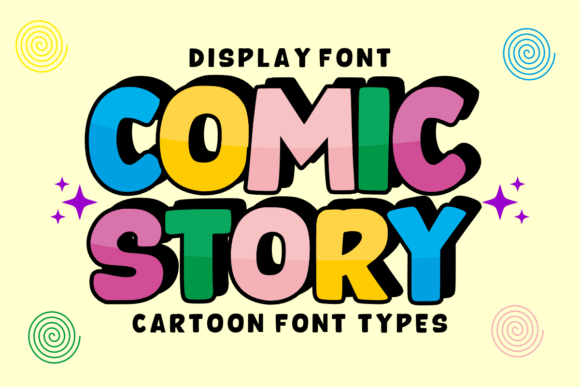
Unleashing the Whimsy of Childhood Memories with Comic Story Font
Who hasn’t been captivated by the vibrant colors and quirky characters of their favorite childhood cartoons? As we sit down to create something new, the nostalgia of those carefree days often sparks our imagination, and it’s in those moments that we yearn for a font that embodies the same playful spirit. Enter Comic Story Font, a delightful display font that brings the charm of comic-style strokes to your designs.
With its unique elegance and playful cuteness, Comic Story Font is a designer’s dream come true. Whether you’re creating a children’s craft project, a customized t-shirt, or a personalized mug, this font effortlessly brings a touch of whimsy and fun to your work. Its versatility makes it a valuable addition to any designer’s toolkit, allowing you to tap into the limitless potential of your imagination and bring your artistic visions to life.
Key Features of Comic Story Font
- Font Family: Comic Story Font is a unique, hand-drawn font family designed to mimic the look of classic comic book lettering.
- Character Set: The font family includes a wide range of characters, including uppercase and lowercase letters, numbers, punctuation marks, and special characters.
- Unique Characteristics: Comic Story Font features a distinctive, hand-drawn style with subtle texture and imperfections, giving it a nostalgic and retro feel.
Comic Story Font Review
I recently had the chance to work with the Comic Story Font, and I must say it’s a font with a lot of character. ✨ The bold lines and playful feel make it perfect for any comic book or graphic novel project. The font also includes a variety of styles and weights, making it easy to mix and match to create a unique look.
One of the things that really stood out to me about Comic Story Font was its ability to add a sense of nostalgia and retro feel to any project. ✨ The font’s design is reminiscent of classic comic books from the past, and it’s sure to bring a smile to the faces of anyone who sees it.
While Comic Story Font is a great font, there are a few limitations to be aware of. ⚠️ For one, the font may be a bit too bold for some projects, and it can be difficult to read at small font sizes. Additionally, the font may not be the best choice for projects that require a lot of fine detail or subtle typography.
Overall, I was really impressed with Comic Story Font. ✨ It’s a fun and playful font that’s perfect for comic book and graphic novel projects, and it’s sure to add a unique touch to any design. While it may have a few limitations, the benefits far outweigh the drawbacks.
- Playful and bold design
- Perfect for comic book and graphic novel projects
- Includes a variety of styles and weights
- May be difficult to read at small font sizes
- Not ideal for projects that require fine detail or subtle typography
Comic Story Font: A Practical Application Guide
Some common use cases for Comic Story Font include:
Creating comic strips and graphic novels
Designing children’s books and educational materials
Adding a playful touch to marketing materials and social media posts
Experiment with different font sizes and colors to create a visually appealing effect.